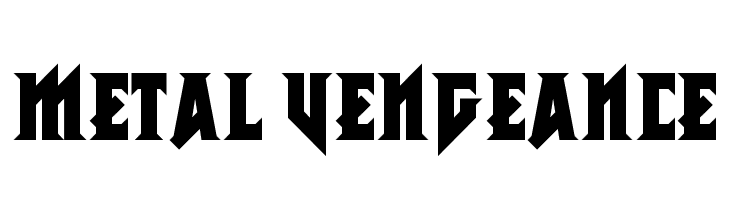
A bold, expressive brush script font with dynamic strokes and artistic flair.
A bold, playful font with exaggerated, uneven letterforms.
A bold, italicized font with a playful and dynamic style.
A decorative, cursive script font with a flowing, handwritten style.
A festive, decorative font with Santa figures holding letters and numbers.
A bold, angular font with a gothic-modern fusion, perfect for dramatic designs.
A bold, angular, italic font with a dynamic and aggressive style.
A bold, distressed font with a rugged, vintage texture.
An elegant, cursive script font with flowing, interconnected letters.
A pixelated, retro-style font with a blocky, geometric design.